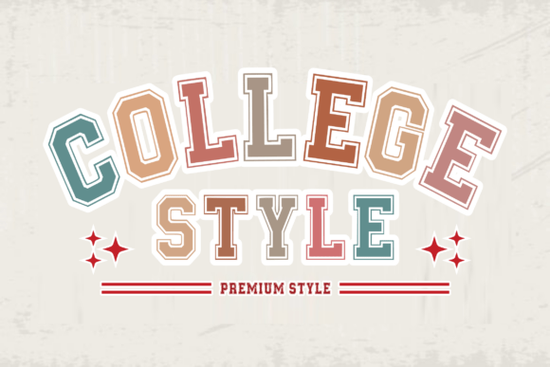
If you're looking for a clean, sporty, and instantly recognizable font for school spirit gear, team apparel, or vintage-inspired branding, the Collegestyle Regular Font is a solid, no-fuss choice. It’s not overly distressed or cartoonish instead, it delivers that classic varsity look with balanced letterforms, consistent spacing, and clear readability at both small and large sizes. Whether you’re designing t-shirts for a high school fundraiser, creating digital social media graphics for a youth league, or building a logo for a local gym, this font fits without needing heavy tweaking.
What kind of projects work best with Collegestyle Regular?
This font shines where authenticity and familiarity matter. Think: letterman jackets, pep rally posters, sports camp flyers, NCAA-style merchandise (non-licensed), and even casual café signage leaning into a campus-cool vibe. Because it includes full uppercase letters, numerals, punctuation, and common symbols, you won’t hit a wall mid-design trying to add a score (“14–7”), year (“Class of 2025”), or mascot abbreviation (“Tigers FC”). It’s built to be used not just admired.
It’s especially helpful if you’re new to typography or short on time. Unlike some display fonts that require kerning adjustments or pairing finesse, Collegestyle Regular holds up well on its own. You can drop it into Canva, Adobe Express, or Cricut Design Space and get professional-looking results fast no font pairing stress required.
How does it compare to other popular varsity-style fonts?
While Collegestyle Regular leans clean and structured, other options offer different textures for specific moods. If you want something with more grit and texture, the Grunge Jersey Regular Font adds subtle wear and tear great for retro baseball tees or DIY screen prints. For a bolder, blockier presence (think stadium banners or locker room signs), Bold Block Font gives extra weight and impact. And if your project calls for a slightly more refined, modern take like a boutique fitness studio or academic tutoring brand the Brooklin Varsity Font offers elegant curves and open counters without losing that collegiate feel.
For contrast, the Distressed Varsity Font introduces intentional roughness perfect when “worn-in” is part of the story. And if you ever need a playful, non-sporty alternative for youth-oriented designs (like summer camp badges or kids’ activity sheets), Smart Candy Font brings lightness and friendliness while still feeling hand-crafted.
Is Collegestyle Regular easy to use across platforms?
One thing to keep in mind: since it’s an all-uppercase font, avoid trying to force lowercase usage. That’s not a limitation it’s a stylistic feature. Uppercase-only fonts like this one are intentionally designed to mimic stitched lettering on jackets or pressed vinyl on banners, where lowercase simply isn’t part of the visual language.
Where to find real-world inspiration
Before finalizing a layout, browse actual college merch sites (not official licensed stores, but independent creators) to see how similar fonts are used in context especially on curved surfaces like sleeves or irregular shapes like pennants. Notice how spacing changes with size, how color contrast affects legibility, and where designers add simple outlines or shadows to lift text off busy backgrounds.
You’ll also find practical examples by searching for “college font” on Creative Fabrica like the Collegestyle Regular Font, which shows live previews and user-uploaded mockups. Seeing how others apply it helps avoid common pitfalls like overloading a design with too many competing elements or using tiny point sizes on fabric prints.
- ✅ Confirm your project needs a bold, uppercase-only, sporty-but-clean aesthetic
- ✅ Review the character set in the product preview make sure it includes any symbols or numbers you’ll need
- ✅ Compare it side-by-side with alternatives like Grunge Jersey or Bold Block to confirm it matches your tone
Start with one strong headline or logo lockup using Collegestyle Regular, test it at three different sizes on your intended medium (screen, print, vinyl), and go from there. Small, intentional choices like line height, letter spacing, and background contrast often make more difference than switching fonts altogether.